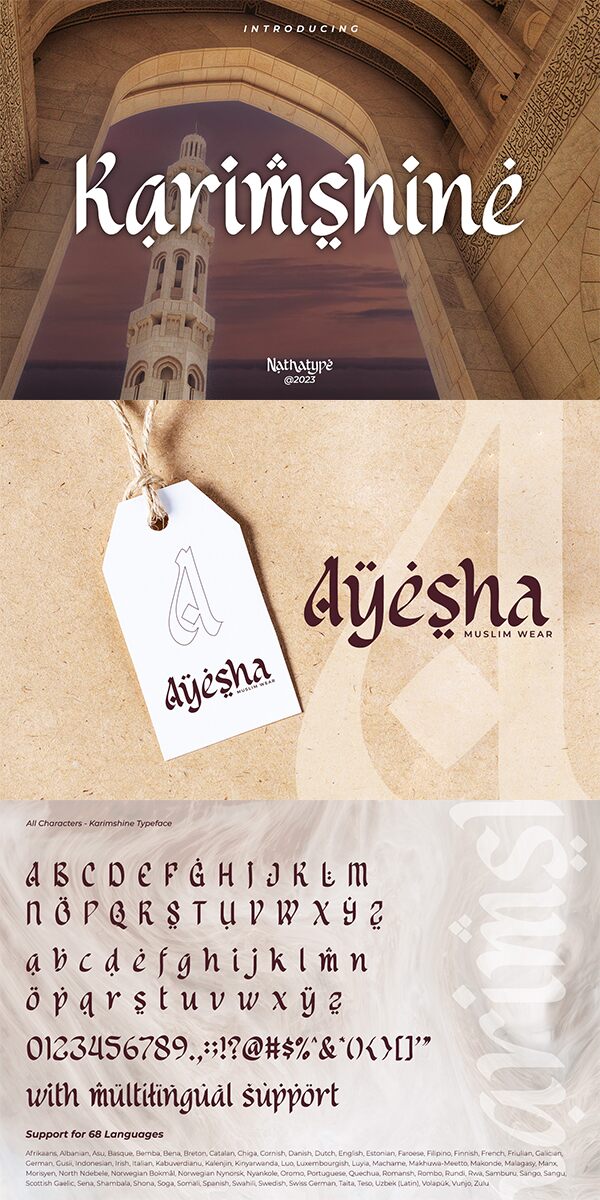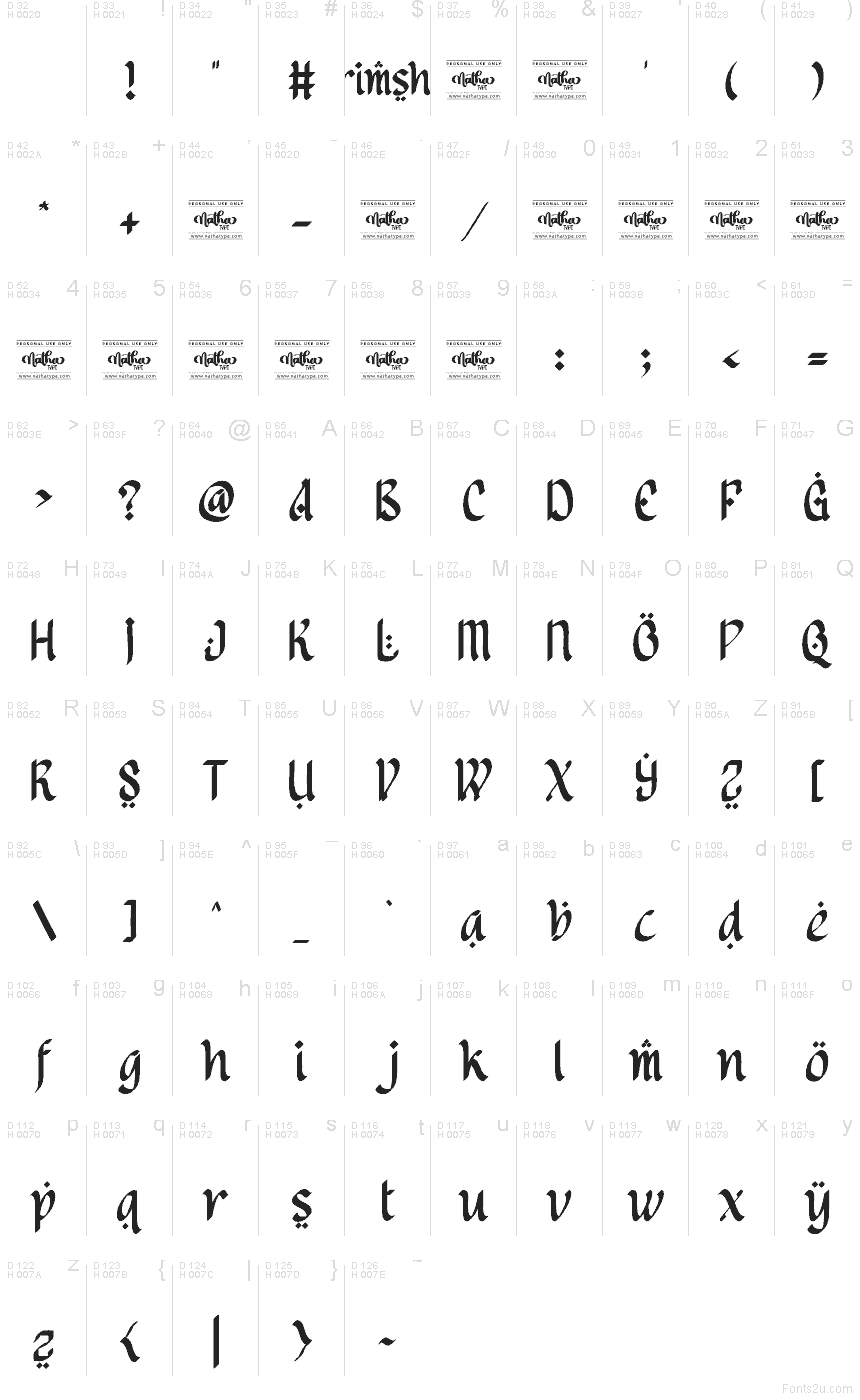
Karimshine Personal Use
Karimshine font by Nathatype is a free faux-Arabic decorative typeface that instantly brings a sense of storytelling and atmosphere to your layout. Its dark, inky strokes curve and taper like calligraphy carved into stone, while the angular cuts keep it bold and legible at a glance. The letters feel rhythmic and slightly dramatic, giving headlines a rich, exotic texture without becoming messy or hard to read.
Using Karimshine, you can quickly set the tone for Middle Eastern restaurants, hookah lounge logos, spice or tea packaging, cultural festival posters, themed book covers, or video titles. This free font shines in short phrases and large wordmarks where its sculpted details can breathe. For body copy, pair it with a simple geometric sans serif to balance the ornate forms and keep your overall design clean and accessible.